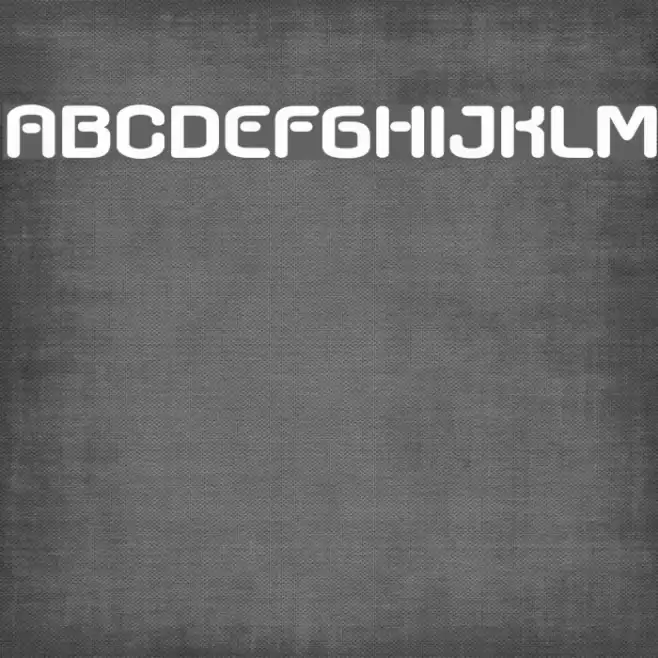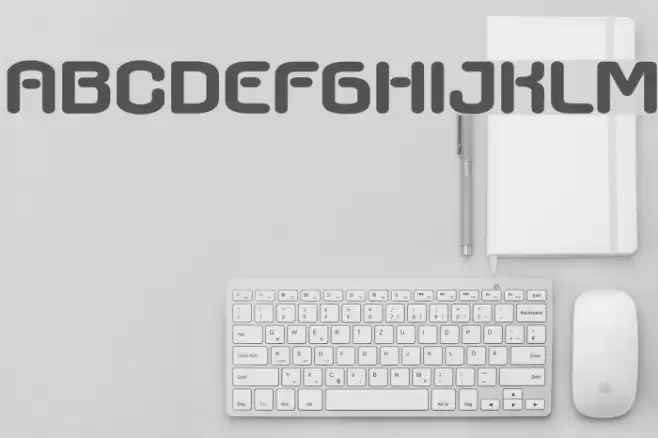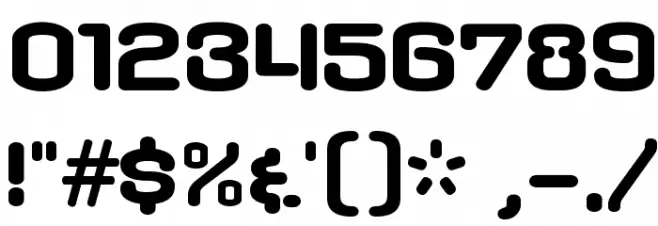
Axaxax-Regular Font
Axaxax-Regular Description
This font features a bold, rounded style with a modern and futuristic aesthetic. The characters are uniformly thick, providing a consistent and smooth appearance. The rounded edges and uniform stroke width give it a friendly and approachable look, while maintaining a sense of modernity. The uppercase and lowercase letters are well-proportioned, and the numerals are clear and easily distinguishable. The special characters maintain the same rounded style, ensuring consistency across all glyphs. This font is versatile, suitable for a variety of design applications where a contemporary and clean look is desired.
A bold, rounded font with a modern and futuristic style from Uncategorized fonts.
- Proposed Projects: Ideal for tech branding, modern advertising, user interfaces, and futuristic design projects.
- Use Case: Headlines, Logos, User Interfaces